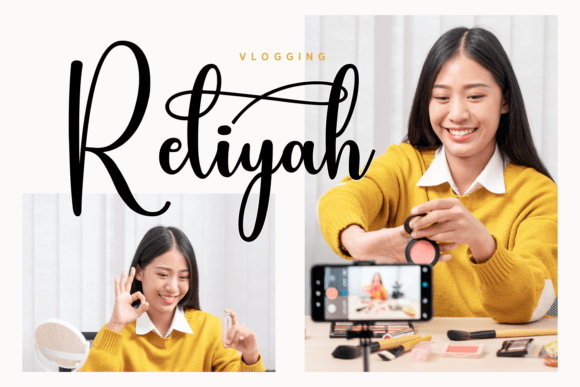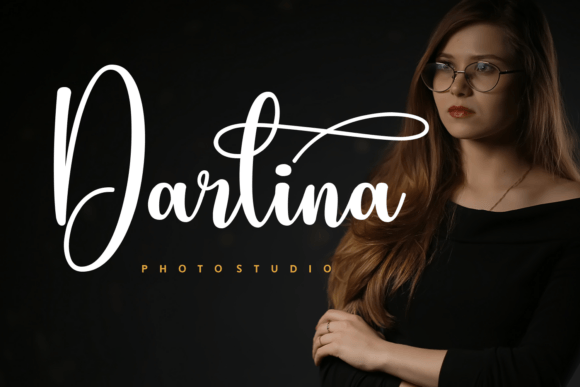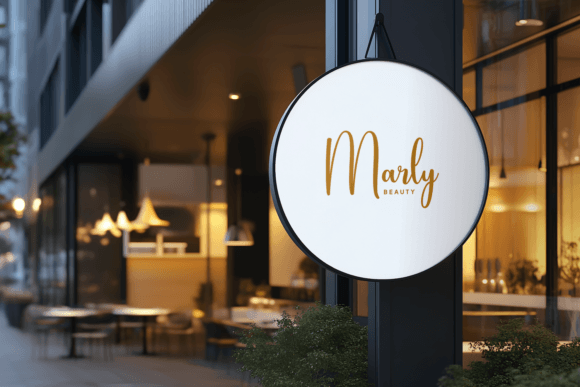
Introducing Blueberries Font: Elevate Your Designs with Elegance
Are you looking for a font that adds a touch of sophistication and charm to your creative projects? Look no further than Blueberries Font, a beautiful handwritten script font that is sure to captivate your audience. With its delicate swashes and refined flow, Blueberries Font is perfect for designers and crafters seeking to infuse their work with a sense of elegance and timelessness.
The Characteristics of Blueberries Font
Blueberries Font boasts a range of characteristics that make it an exceptional choice for various design applications. Its handwritten script style exudes warmth and personality, while its delicate swashes add a touch of whimsy and flair. The font’s refined flow ensures that it remains legible and easy to read, making it suitable for both short phrases and longer passages of text.
Perfect for Elegant Designs
Blueberries Font is specifically designed to bring a sense of sophistication and refinement to your projects. Its elegant design makes it an ideal choice for:
- Wedding Invitations: Add a touch of romance and whimsy to your wedding invitations, save-the-dates, and other stationery with Blueberries Font.
- Branding and Logos: Create a lasting impression with Blueberries Font, perfect for logos, business cards, and other branding materials.
- Social Media Graphics: Elevate your social media presence with eye-catching graphics, quotes, and promotional materials featuring Blueberries Font.
Why Choose Blueberries Font?
With so many fonts available, why choose Blueberries Font for your projects? Here are just a few reasons:
- Unique and Versatile: Blueberries Font offers a distinctive style that can be used across various design applications, from digital to print.
- Elegant and Refined: The font’s elegant design ensures that your projects exude sophistication and refinement.
- Easy to Read: Despite its ornate style, Blueberries Font remains legible and easy to read, making it perfect for longer passages of text.
Tips for Using Blueberries Font
To get the most out of Blueberries Font, consider the following tips:
- Pair with Contrasting Fonts: Combine Blueberries Font with contrasting fonts to create visual interest and hierarchy in your designs.
- Experiment with Swashes: Take advantage of Blueberries Font’s delicate swashes to add a touch of personality to your designs.
- Use for Headlines and Titles: Blueberries Font is perfect for headlines and titles, where its elegant design can make a lasting impression.
Blueberries Font is a charming handwritten script font that offers a unique blend of elegance, refinement, and whimsy. With its delicate swashes, refined flow, and timeless appeal, it’s perfect for designers and crafters seeking to elevate their projects with a touch of sophistication. Whether for wedding invitations, branding, logos, or social media graphics, Blueberries Font is sure to captivate your audience and leave a lasting impression.